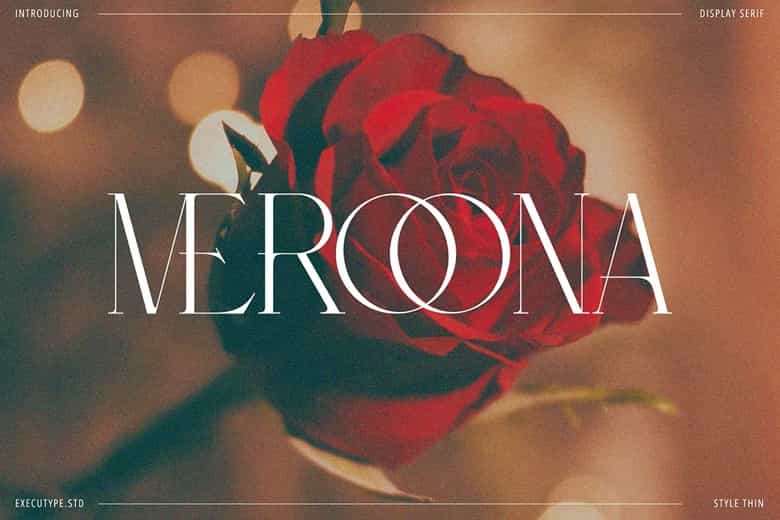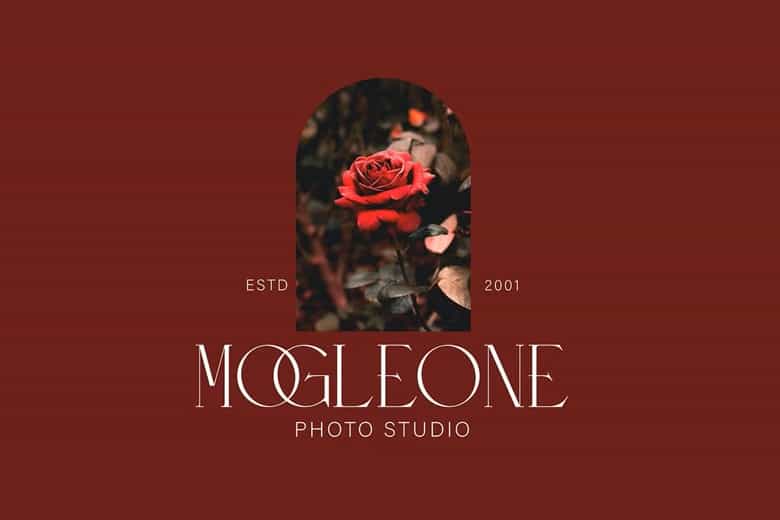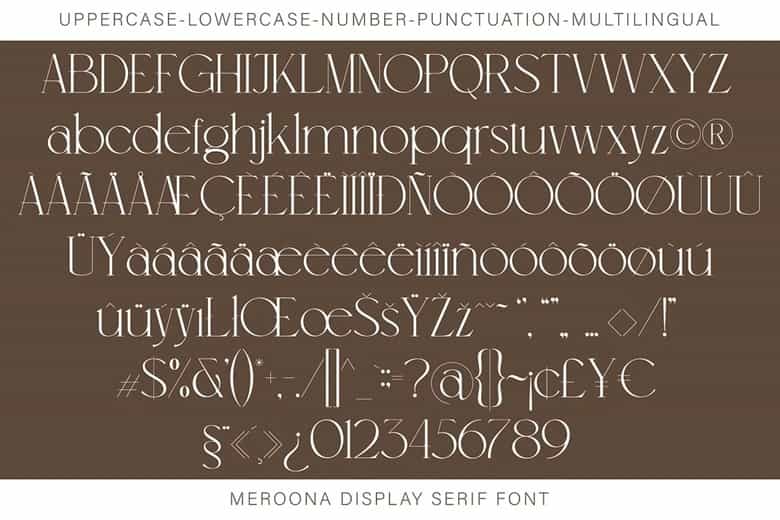
Meroona is a modern serif font with an elegant style, a dancing baseline! Greeting Cards, Branding Materials, Business Cards, Quotes to screens, Posters etc. on invitation so so beautiful. The triangular serif and strong letter shapes are impressive in logo design and impressive editorial use, and this typeface is equally impressive in display size and easily readable in text size.